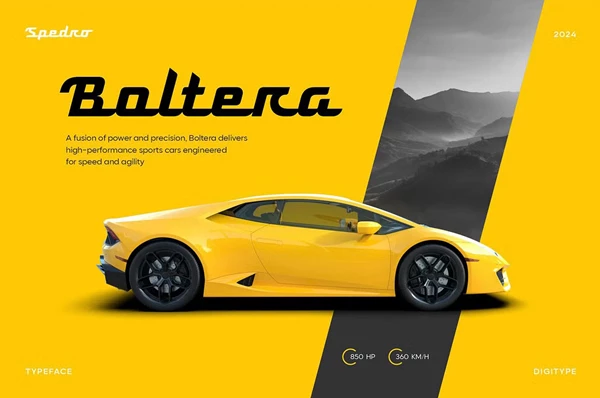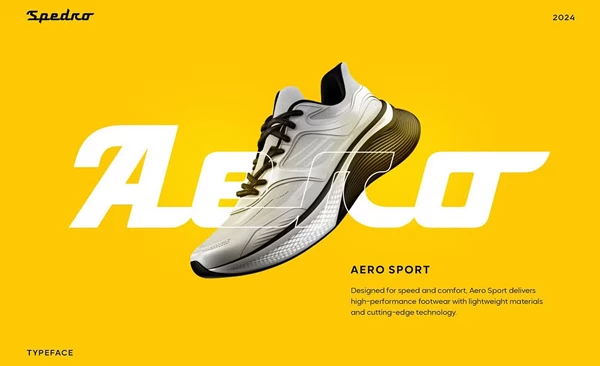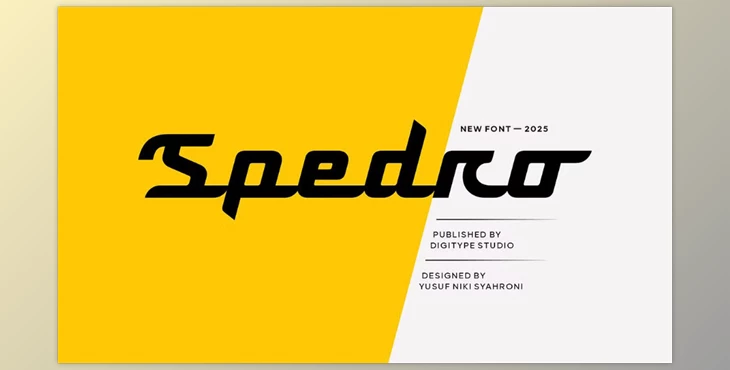
Spedro Sporty Script Font:
The Spedro Sporty Script Font is a vibrant typeface and is interesting because of its unique dynamic and bold appearance that portrays speed and energy. This clearly shows that the font's purpose is directed to a specific type of project, such as those needing a modern and cutting-edge look.
Its strong design is used in branding, sports, automobiles, technologies, esports, and many other fields - further extending its appeal in modern typography through its masculine and stylish look.
Some great features of Spedro Sporty Script Font:
- Includes letters in the uppercase and lowercase, making it user-friendly.
- A comprehensive set of numbers and marks that serve designs of different types.
- Creative text embellishing style alternates give the font additional.
- A wide variety of supported languages increases its versatility.